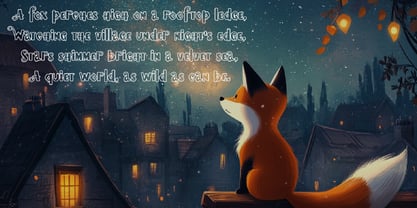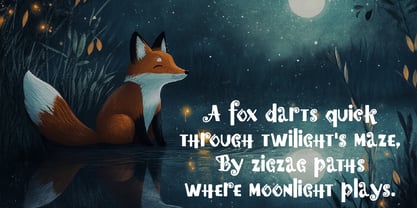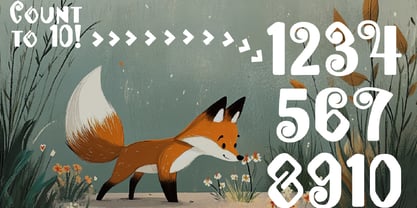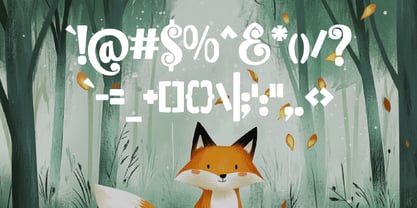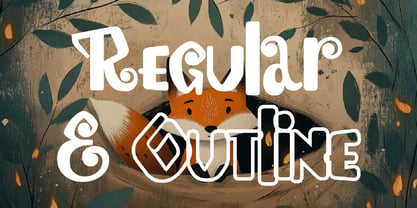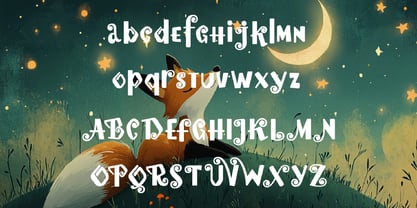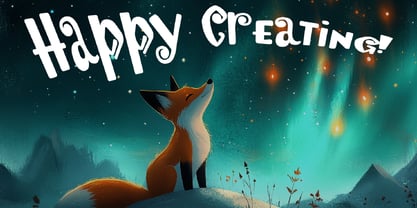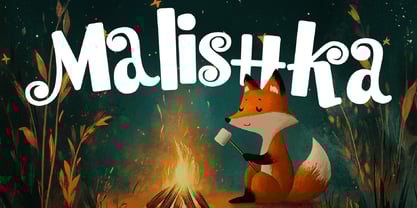
Malishka
La familia tipográfica Malishka fue diseñada por Igor Ovsyannykov y publicada por Hipfonts. Malishka contiene 2 estilos y opciones de paquete familiar. Más información sobre esta familia
Unleash the charm of childhood wonder with Malishka, a delightful serif font designed to bring smiles to every project! Perfectly playful and irresistibly adorable, Malishka blends serif and sans-serif characters into a unique harmony, creating a typeface that's both distinctive and timeless.
Each letter is crafted with whimsy and flair, making Malishka ideal for children's books, playful branding, posters, and more. Its quirky personality and one-of-a-kind design ensure it stands out, while its readability keeps it approachable and fun.
Whether you're designing for young hearts or adding a touch of joy to your creative work, Malishka promises to deliver a memorable and lovable experience. Embrace the magic of this unique typeface and make your projects unforgettable!
Malishka